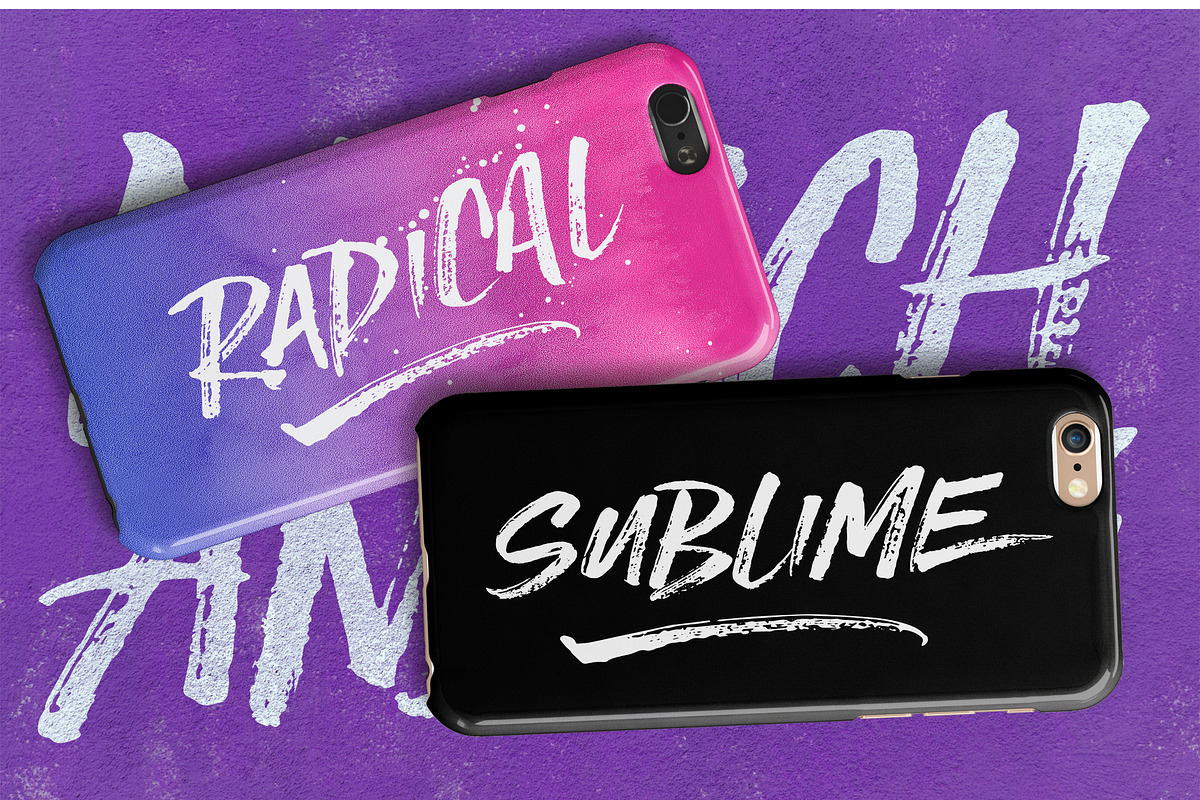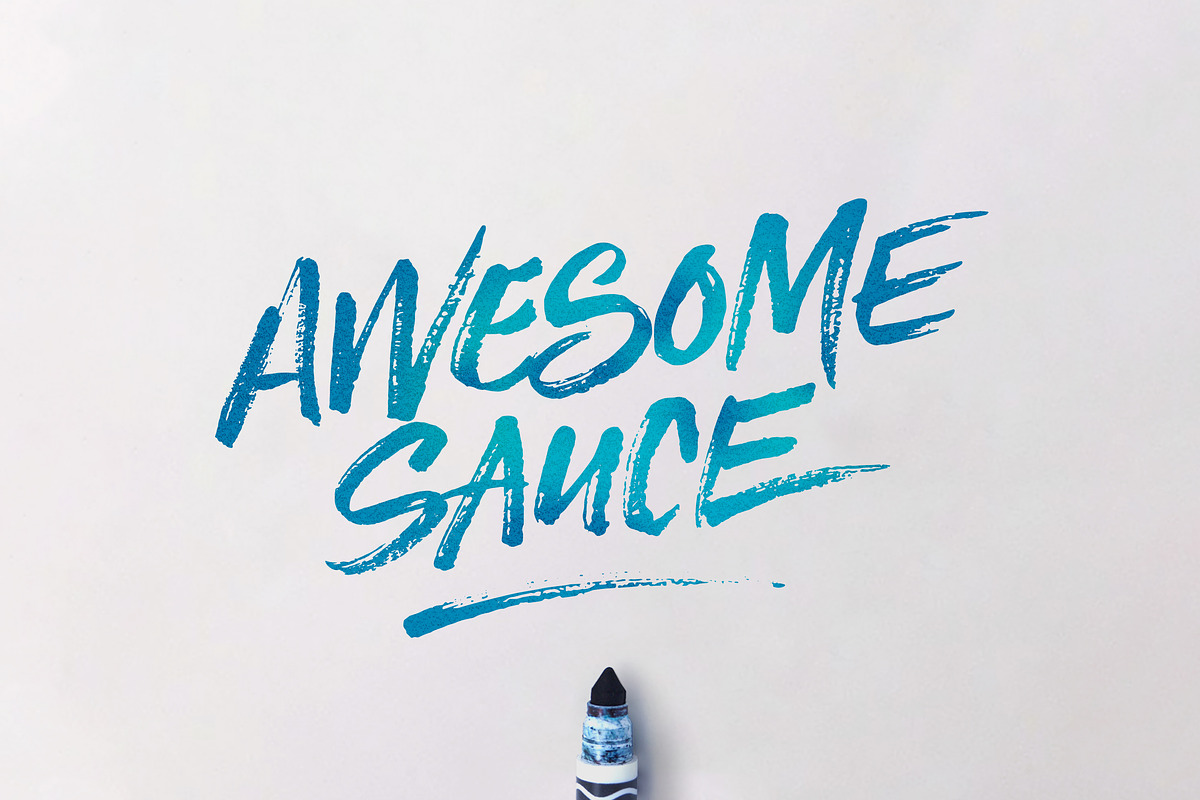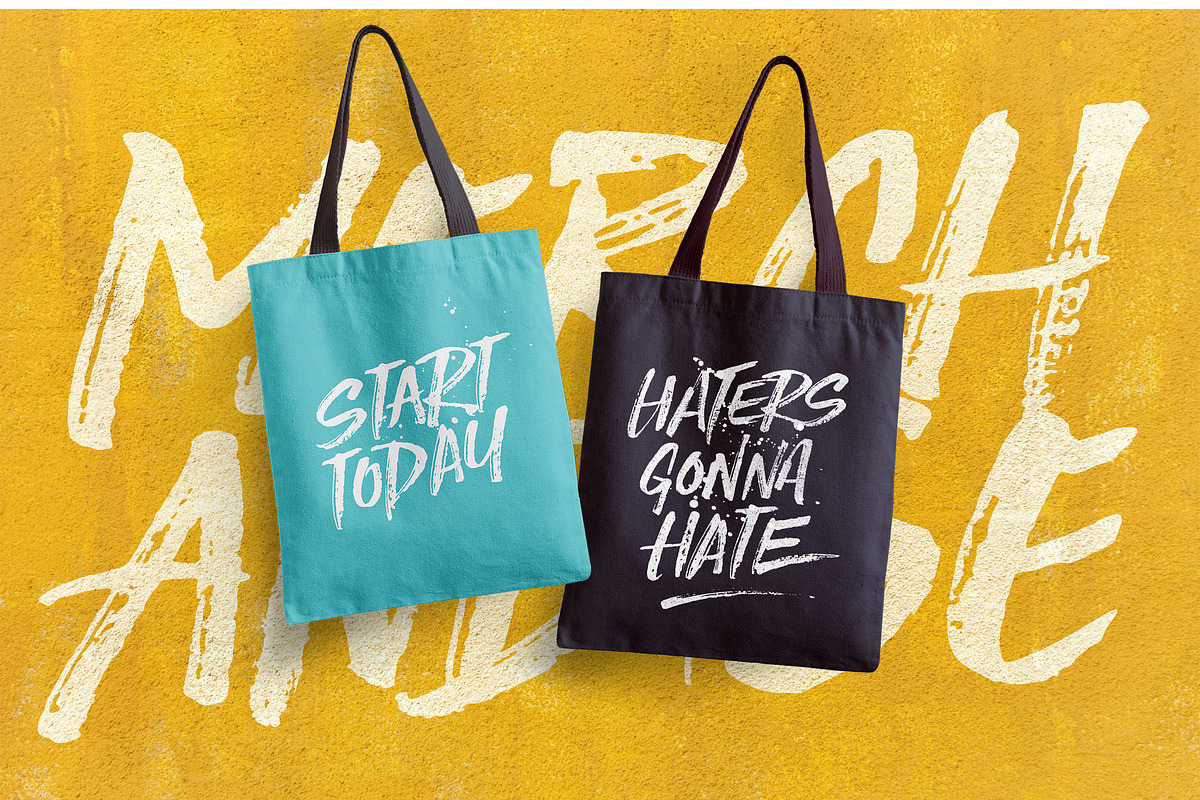
Stone Harbour Font
Stone Harbour Brush Font is Brush Font by Nicky Laatz. It is a punchy new dry marker script font with loads of attitude and extras. It is an all-uppercase font – the uppercase being the main letters, the lowercase has alternate letters, and then there are 141 EXTRA alternate letters accessible via a glyphs panel for your designing pleasure.